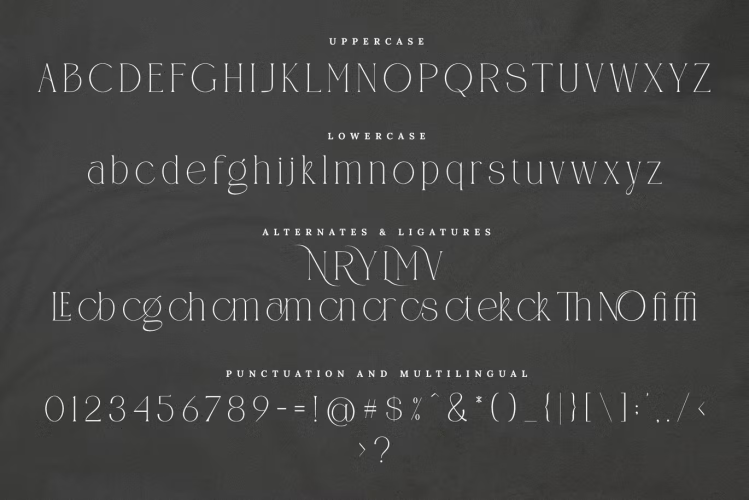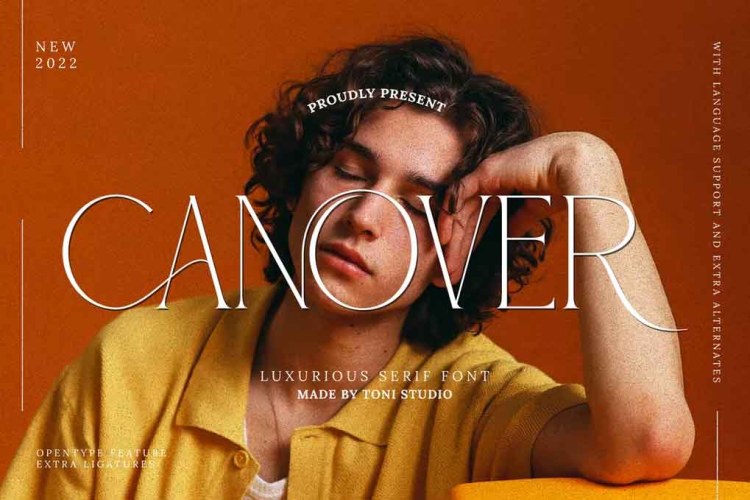
CANOVER Ligature Font
CANOVER is a Modern Ligature Serif Font. Its soft curves mix with high-contrast glyphs, giving it both a feminine and masculine quality. Inspired by magazine ads from the ’70s and ’80s – this family fits in with bringing retro back into the 21st century. Great in layout design for citations or body copy, best used as a display for titles, logos, brands, magazines, product packaging, and invitations.
Where CANOVER Ligature Font works best
Reports, white papers and book interiors hold the eye longer when the text face has real serifs; CANOVER Ligature Font keeps that rhythm without looking old-fashioned.
Food, spirits and cosmetics brands lean on serif wordmarks to suggest age and care. CANOVER Ligature Font gives that signal at wordmark size.
Set CANOVER Ligature Font for the body of an award or a diploma and keep the recipient name in a script; the pairing is what makes a document feel official.
What kind of work does CANOVER Ligature Font suit?
It sits in the Serif Fonts group and reads as branding, modern, retro, serif. That makes it a candidate wherever those qualities help: headings, packaging, social graphics and brand work. Set it at the size you plan to use before deciding.